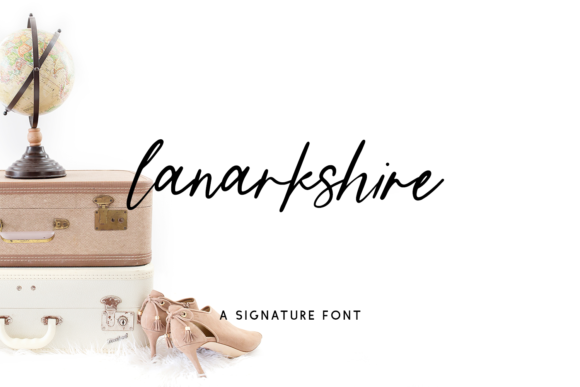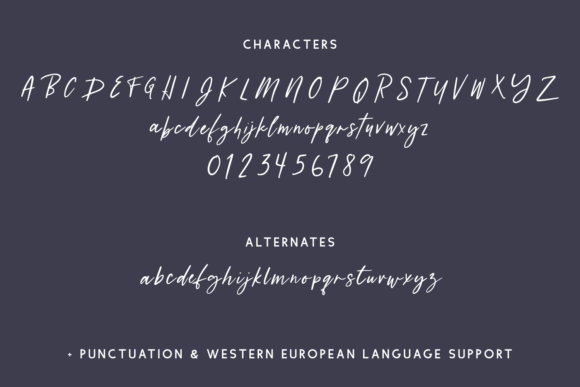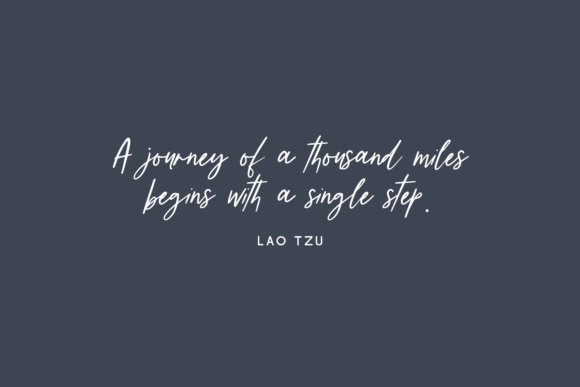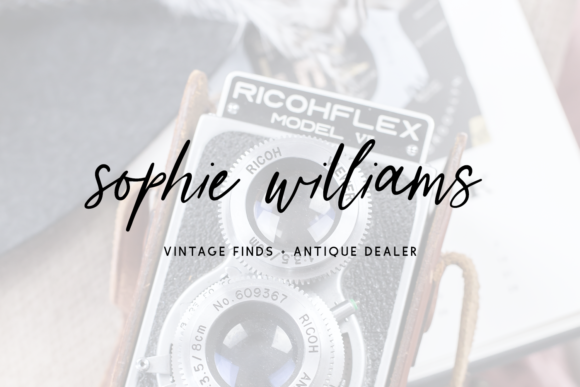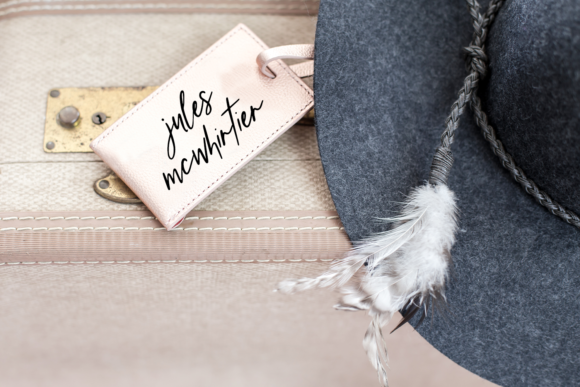
About Lanarkshire Script Font
Lanarkshire Script is an exquisite handwritten font, masterfully designed to become a true favorite. It maintains its classy calligraphic influences while feeling contemporary and fresh. Fall in love with it and bring your projects to the highest levels!